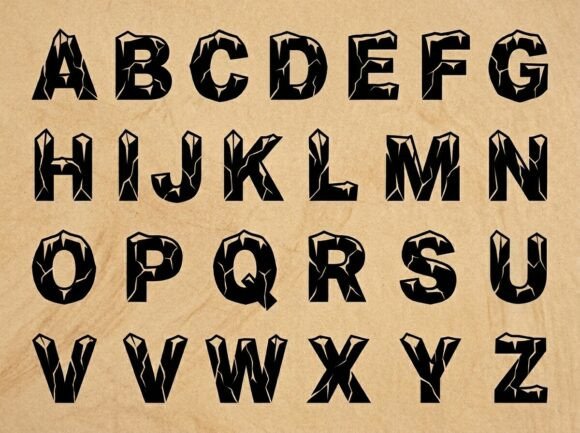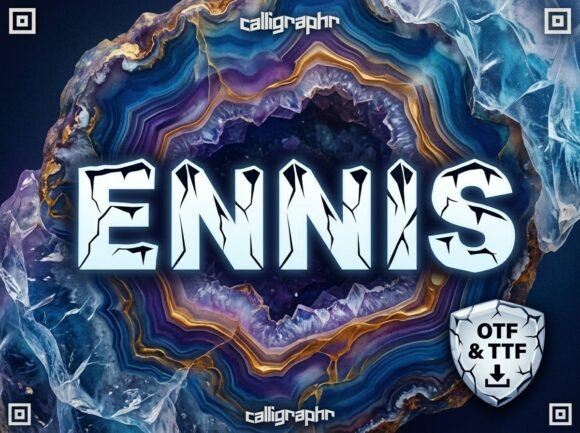
The Ennis Font: A Stunning Decorative Display Font to Elevate Your Designs
Have you ever been working on a project, pouring your heart and soul into it, only to get stuck on one thing: finding the perfect font? I remember a particularly frustrating experience when I was designing a logo for a client. I wanted something that would make a statement, something bold and eye-catching. After hours of searching, I stumbled upon a font that caught my attention, but it was just not quite right. That’s when I discovered the Ennis Font, a game-changing decorative display font that has since become a staple in my design toolkit.
- ✅ Unique artistic elements that add a touch of personality to any design
- ✅ Strong visual personality that’s perfect for making a statement
- ✅ Versatile enough for bold headlines, artistic logos, and creative packaging
- ✅ Maintains a professional and polished finish, even in complex designs
One thing to keep in mind when working with the Ennis Font is that it’s an all-caps display typeface. This means it doesn’t include lowercase letters, which might limit its use for body text or longer paragraphs. Additionally, some users might find the font’s bold personality overwhelming for certain design projects.
To get the most out of the Ennis Font, it’s essential to understand its capabilities and limitations. With a little creativity and experimentation, you can unlock its full potential and take your designs to the next level.
- Explore the font’s OpenType features, such as glyphs and stylistic alternates, to add more depth and character to your design
- Use the font’s bold personality to create eye-catching headlines and titles
- Use the font to create bold headings and titles that add a touch of personality to your document
The Story Behind the Ennis Font
The Ennis Font was designed with one goal in mind: to create a stunning decorative display font that would make a statement. The designer, inspired by the art deco movement and modern typography, set out to create a font that would be both bold and elegant. The result is a font that’s perfect for creators who want to break away from the ordinary and add a touch of personality to their designs.
Q: Is the Ennis Font suitable for body text?
A: While the Ennis Font is perfect for bold headlines and titles, it’s not ideal for body text due to its all-caps design and bold personality.